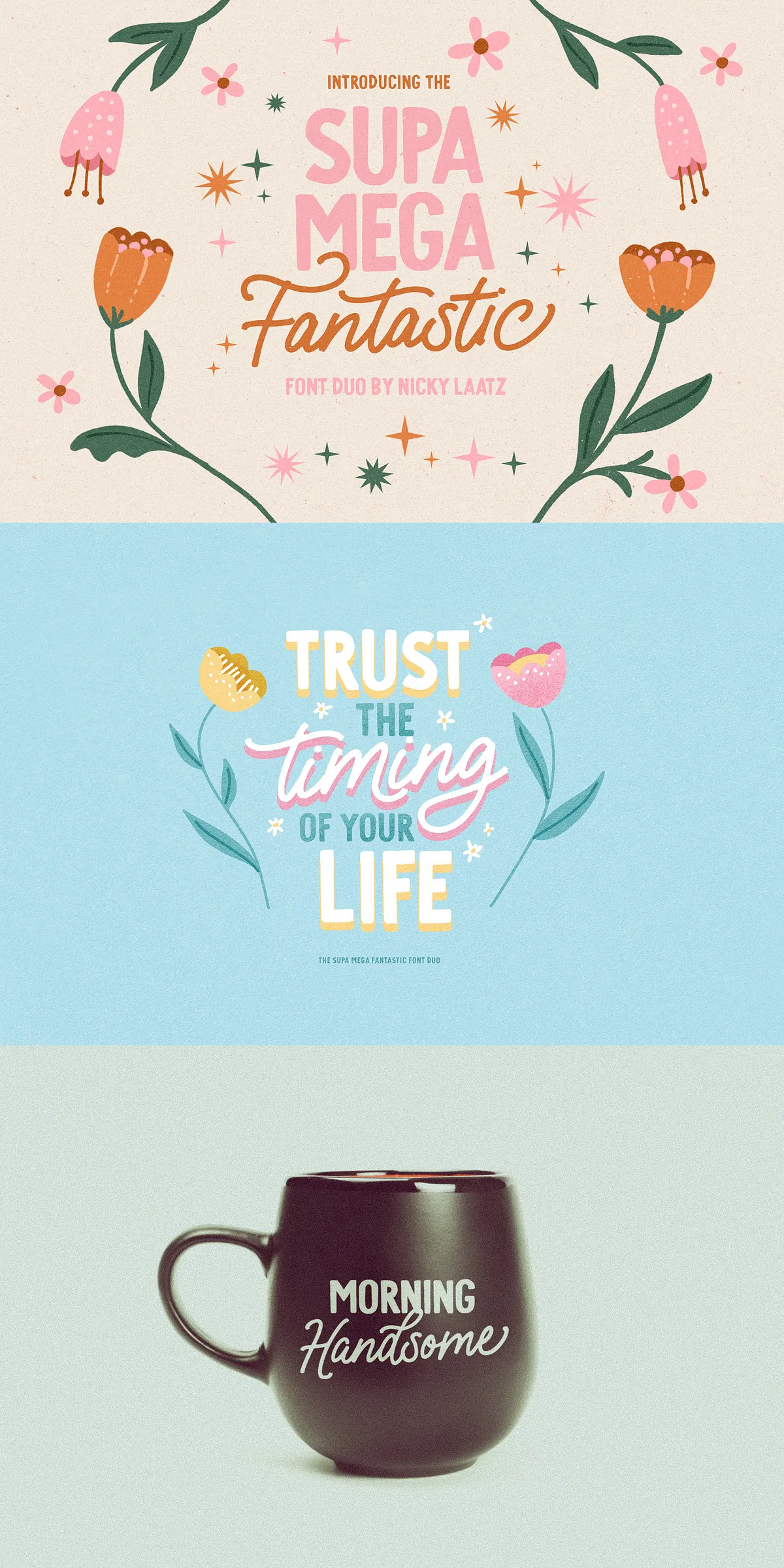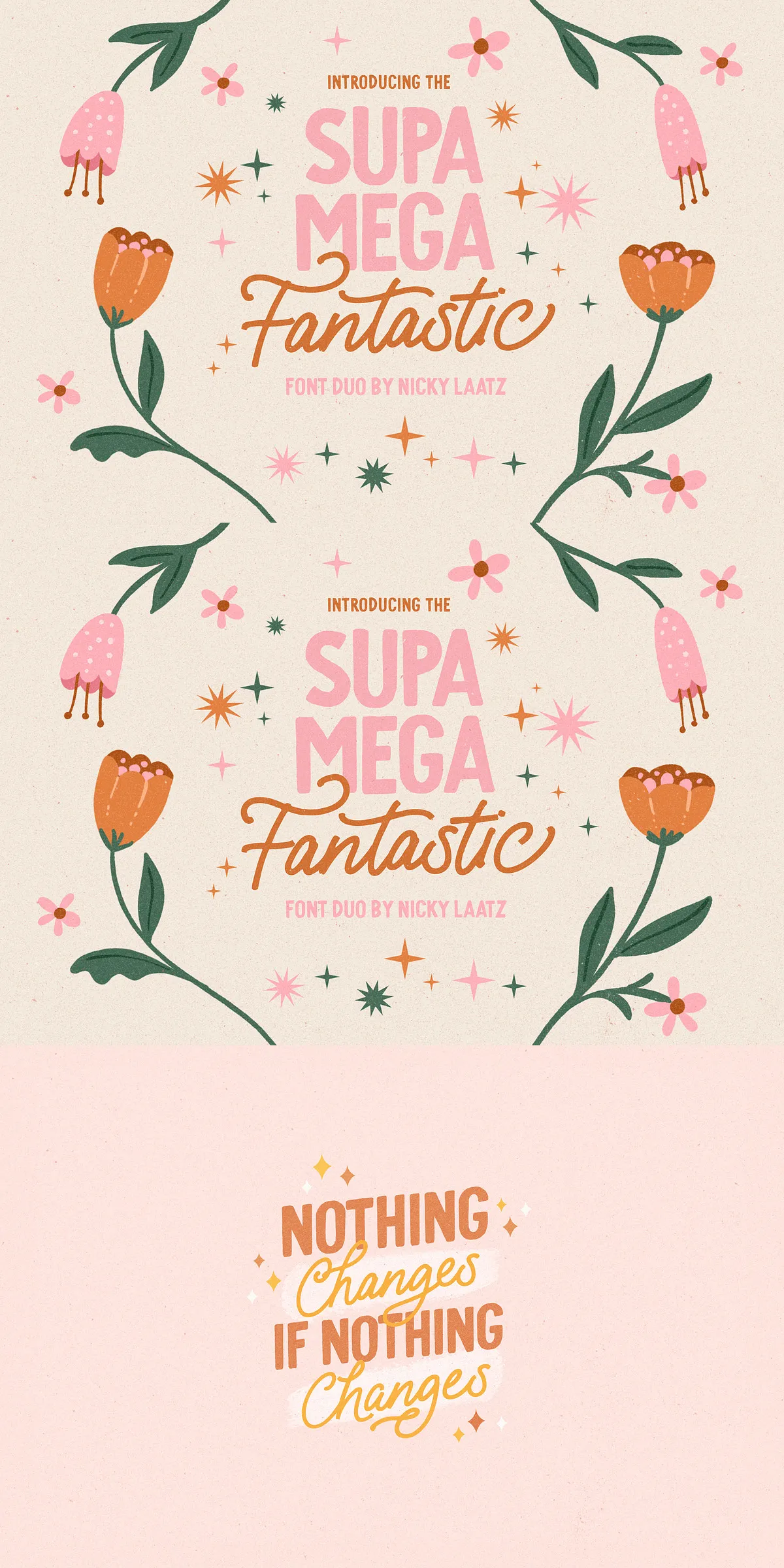
Supa Mega Fantastic Font Duo
The Supa Mega Fantastic Font Duo is a vibrant collection of hand-lettered, sign-painter style fonts designed to elevate your creative projects with a bold, playful edge. This unique duo pairs a charming monoline script with a robust, chunky all-caps sans serif, offering a versatile typographic toolkit that’s perfect for branding, packaging, posters, invitations, and more. Crafted with creativity and functionality in mind, Supa Mega Fantastic injects personality and flair into every word, putting the power of expressive typography at your fingertips.
Dynamic Script and Bold Sans Serif: Design Freedom Unleashed
The heart of this font duo lies in its contrasting styles that work harmoniously to bring energy and balance to your designs. The monoline script delivers a smooth, flowing, and playful handwritten feel that enhances warm and personal messages. It shines with its wide range of OpenType alternate characters, enabling designers to choose between subtle elegance or extravagant flair. Every uppercase letter boasts a fancy alternate, elevating headlines or logos with a handcrafted touch. Meanwhile, lowercase letters come with multiple alternate forms to make your lettering distinctive, stylish, and perfectly suited to your unique messaging.
The chunky all caps sans serif complements the script with its sturdy, bold presence. Whether used in combination or solo, this sans serif font lends clarity and impact to your typography. The duo’s versatility empowers you to create playful yet professional designs that catch eyes and hold attention.
Two Script Variants for Different Visual Needs
Supa Mega Fantastic Script offers two carefully balanced versions: Regular and a slightly thinner variant. The thinner version is ideal for light-colored text on dark backgrounds, maintaining legibility and refined style. Conversely, the slightly thicker version works perfectly with darker text on lighter backgrounds, ensuring boldness without overwhelming your design. These options provide flexibility, letting you tailor the typography to the exact vibe of your project.
Extensive OpenType Features to Enhance Your Typography
Broad Language Support for Global Creativity
Perfect Applications for the Supa Mega Fantastic Duo
Designed with creativity and usability at its core, Supa Mega Fantastic shines in numerous design applications. Use it to craft playful branding identities, send heartfelt greetings, or design striking posters that captivate audiences. Its bold yet approachable fonts also fit wonderfully into packaging design, event invitations, social media graphics, and so much more. Wherever you aim to inject personality and charm, this font duo delivers with confidence and style.
Whether you need delicate handwritten touches or bold statements, the Supa Mega Fantastic Font Duo equips designers with the tools to craft visually engaging and professional projects that stand out.